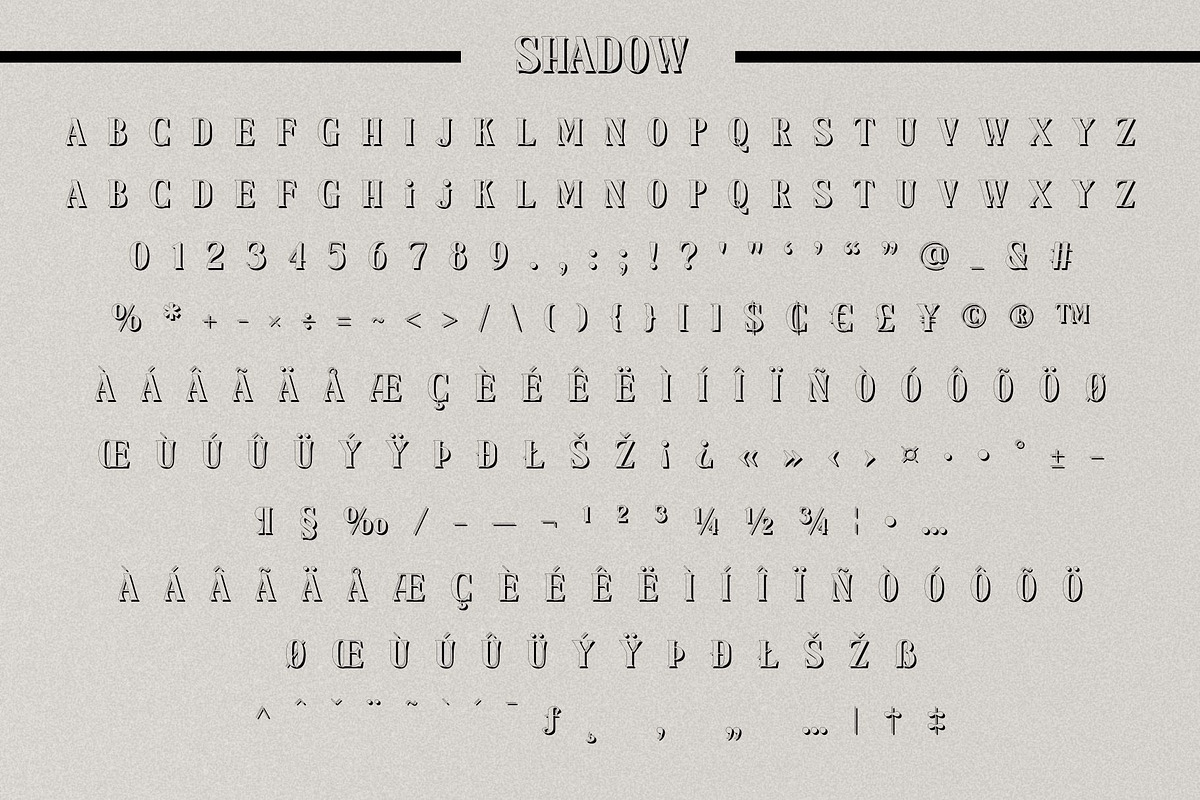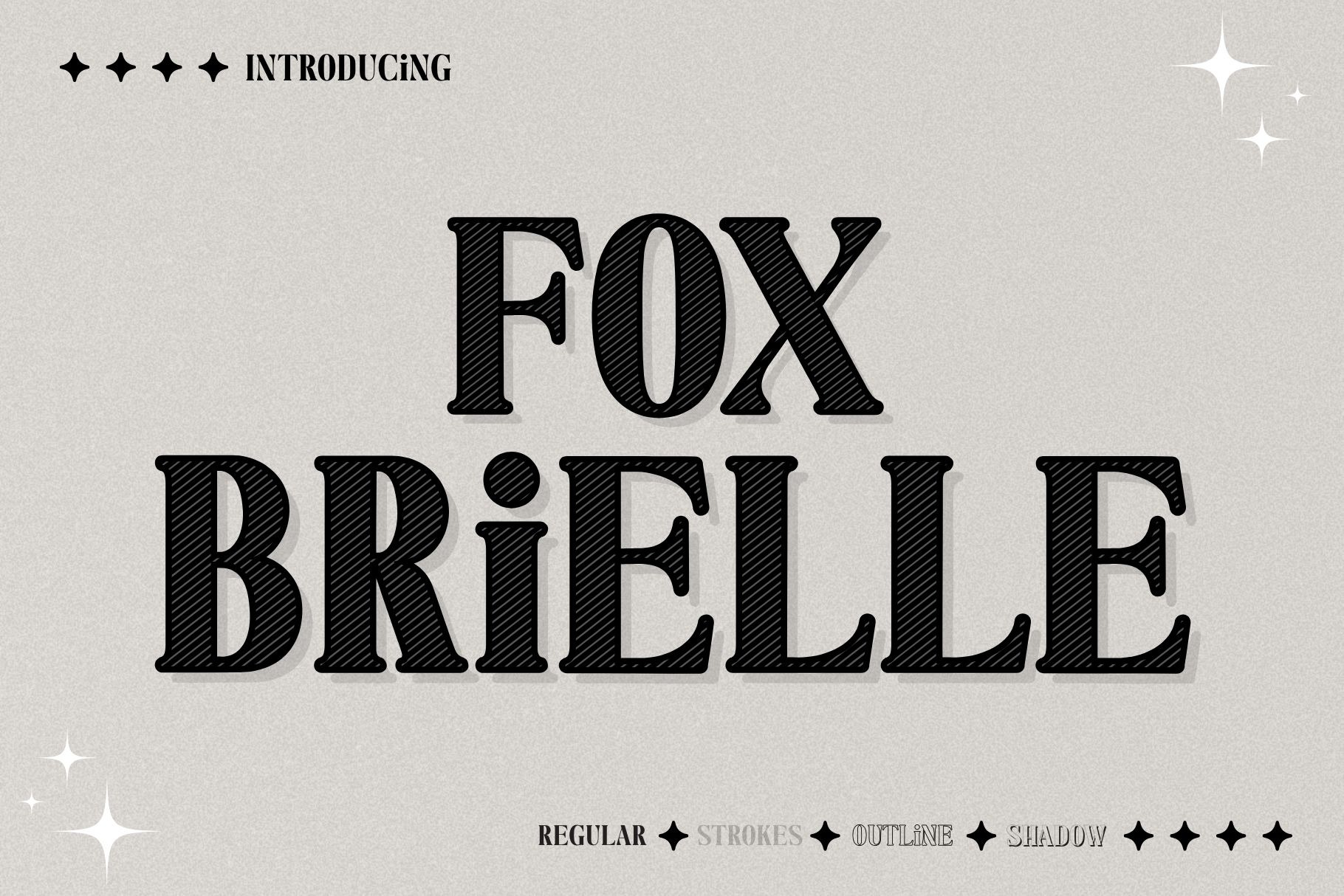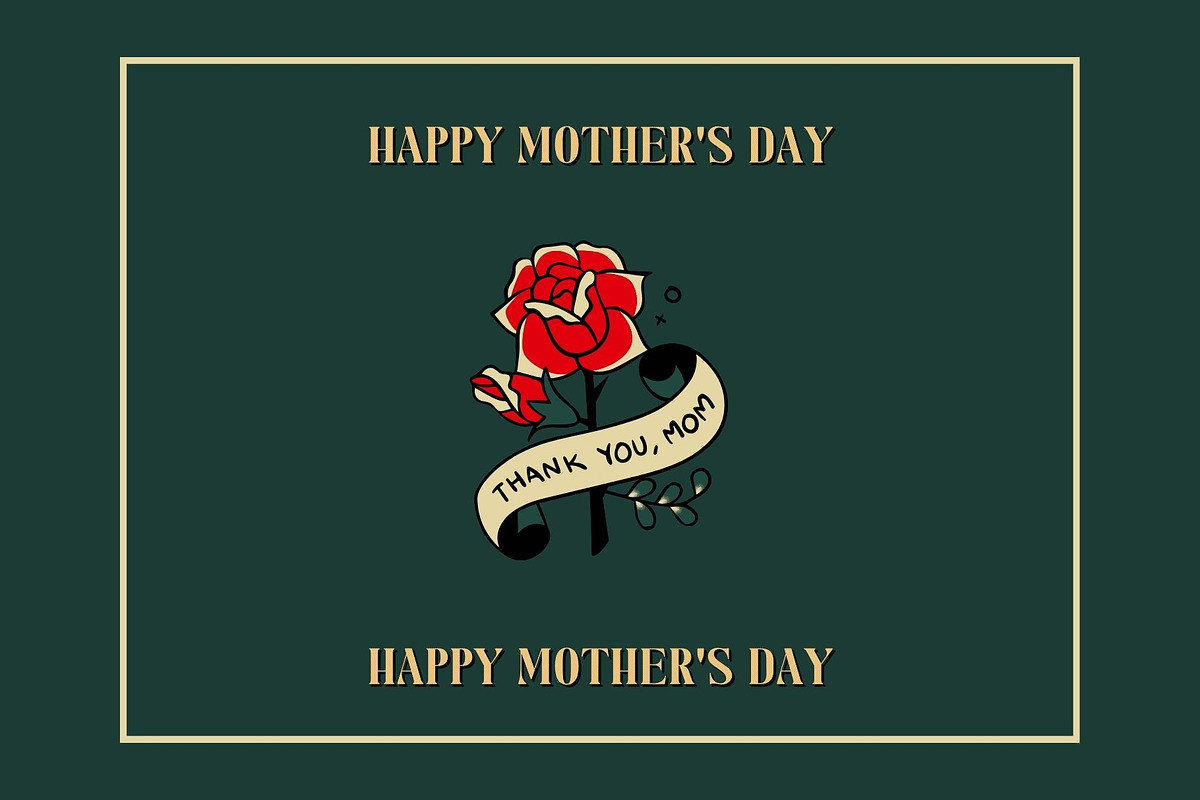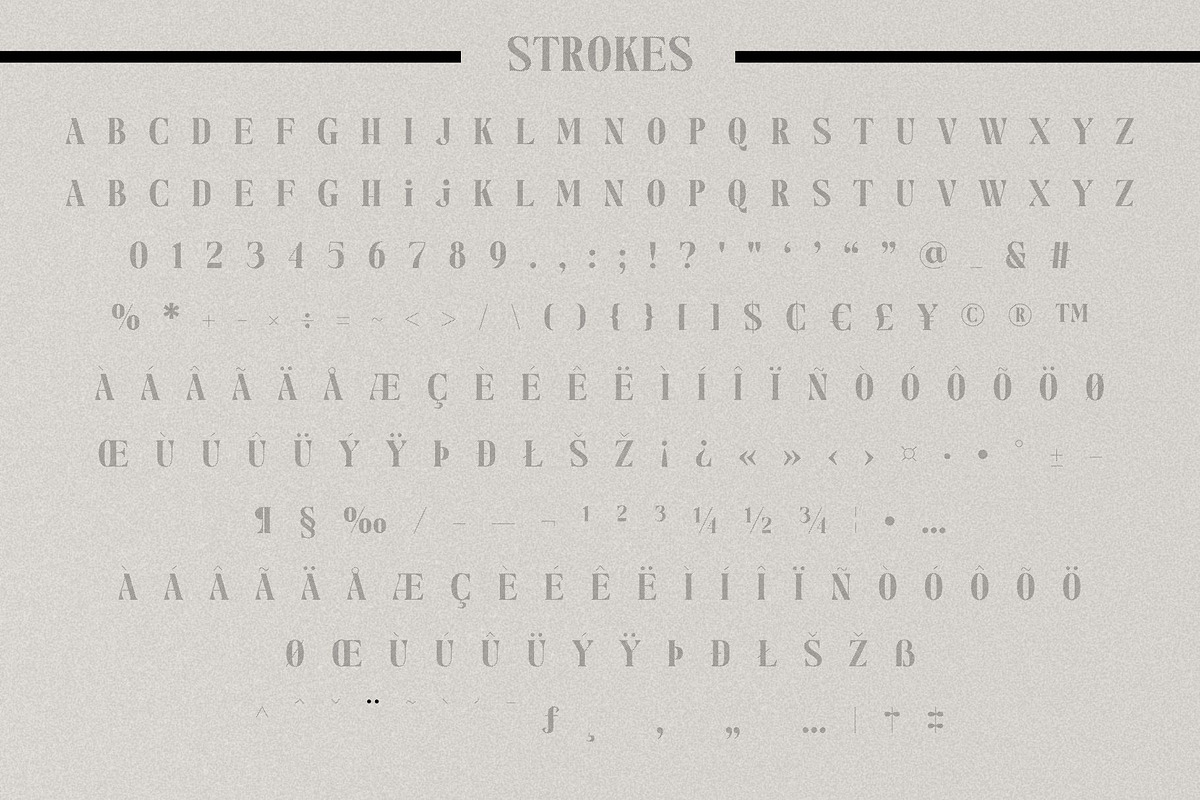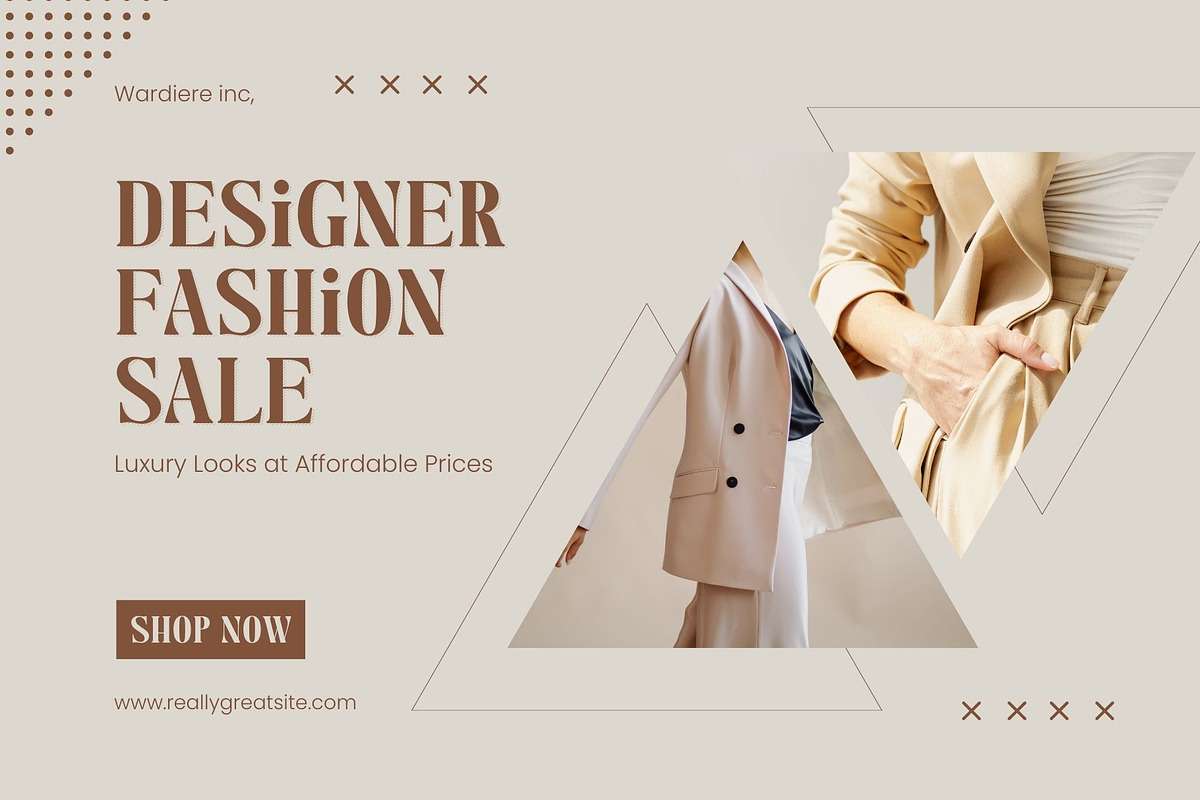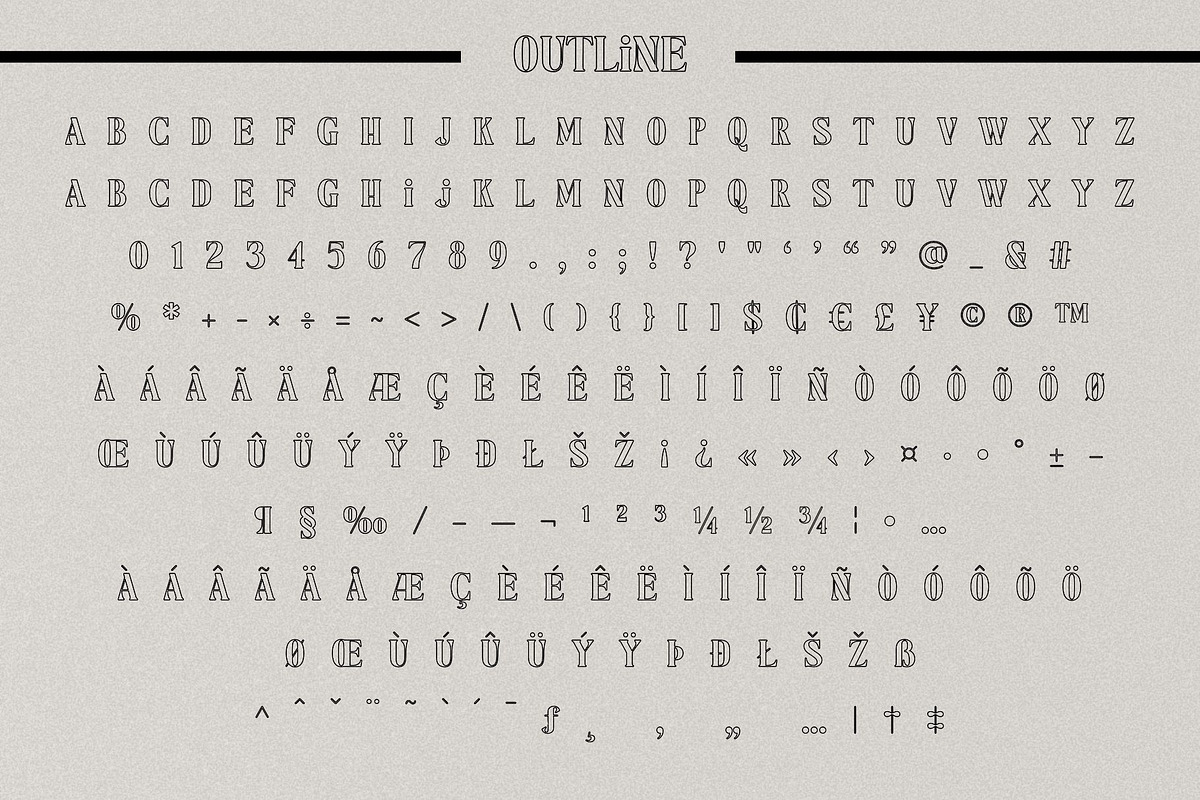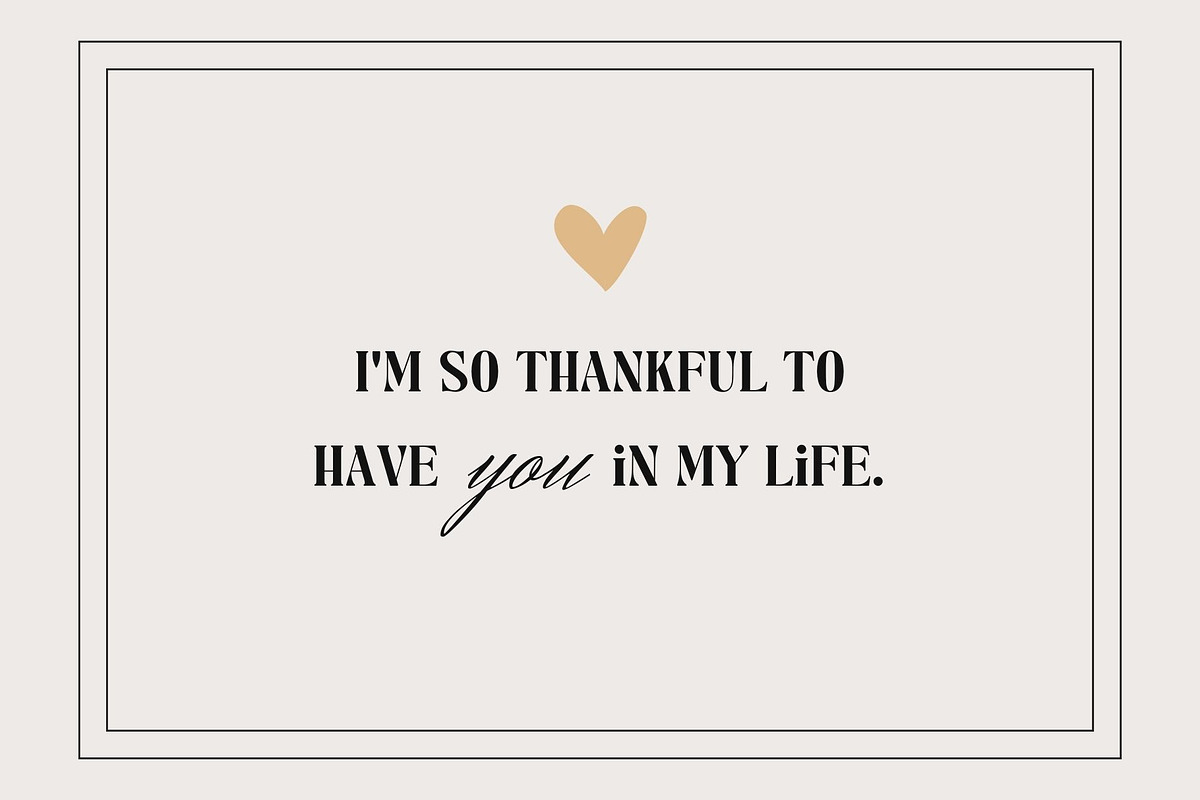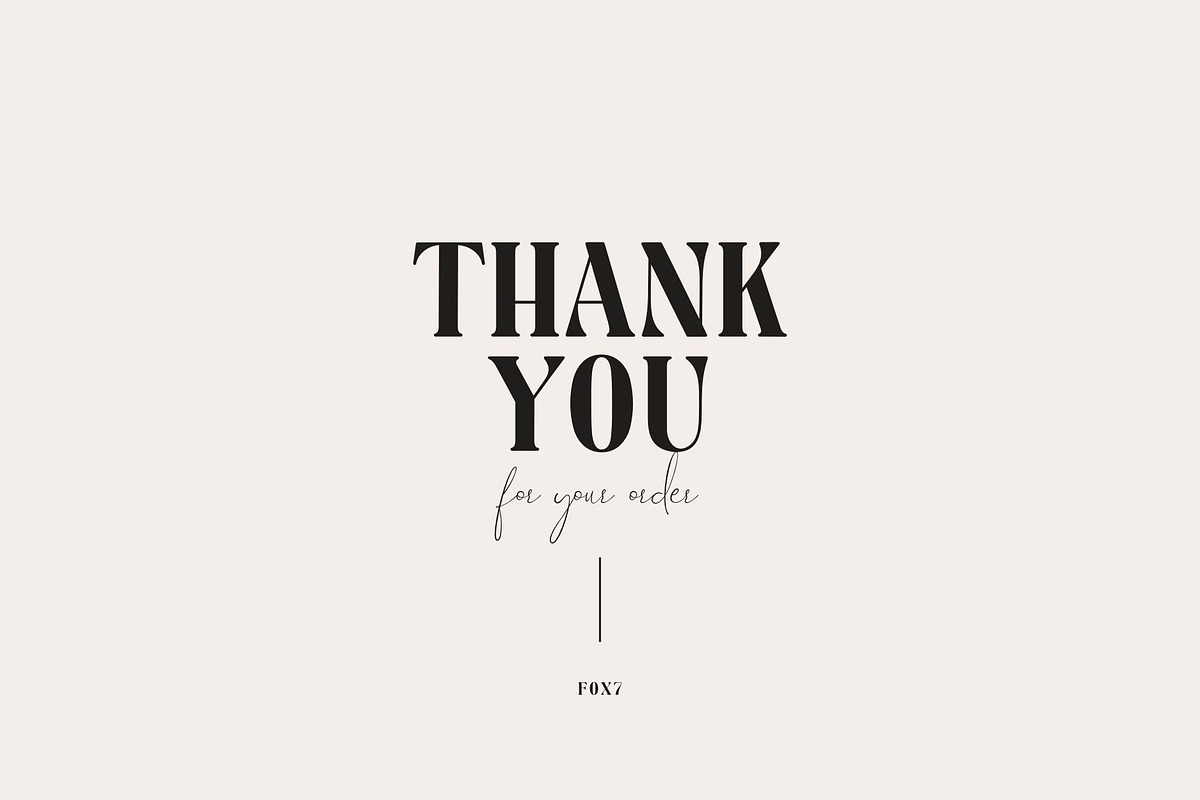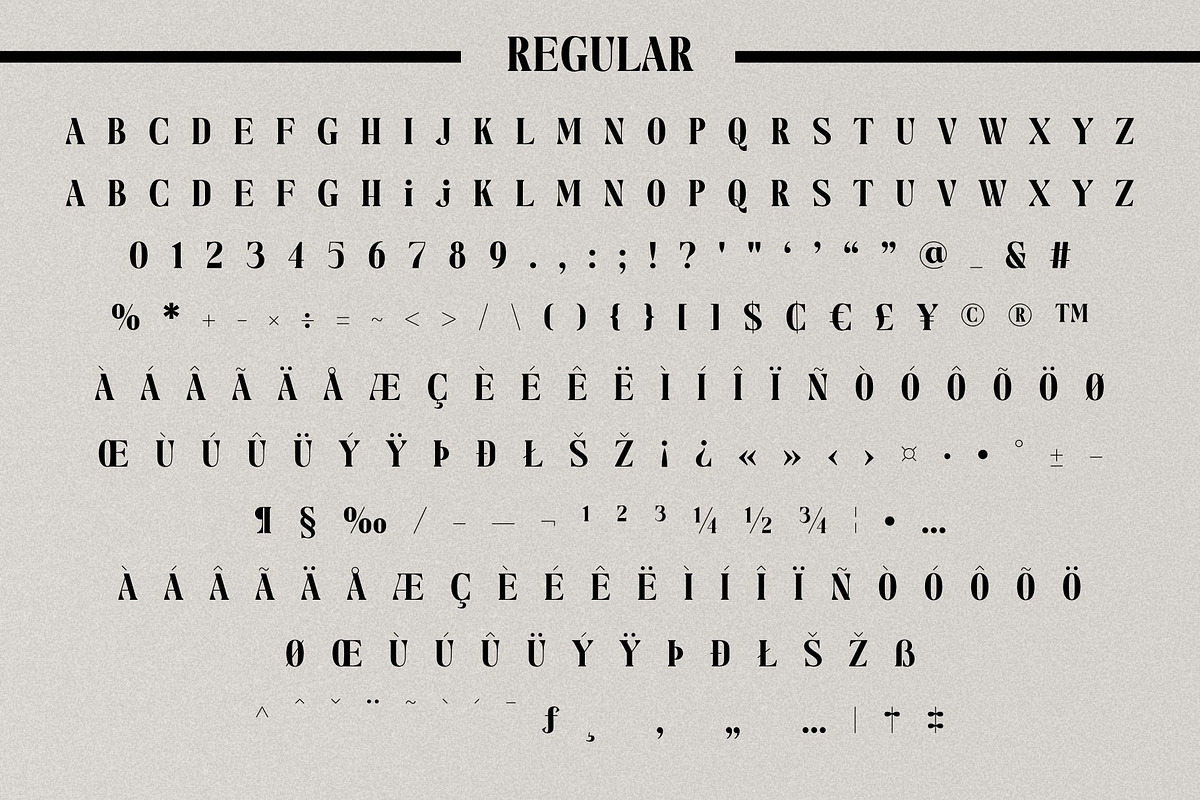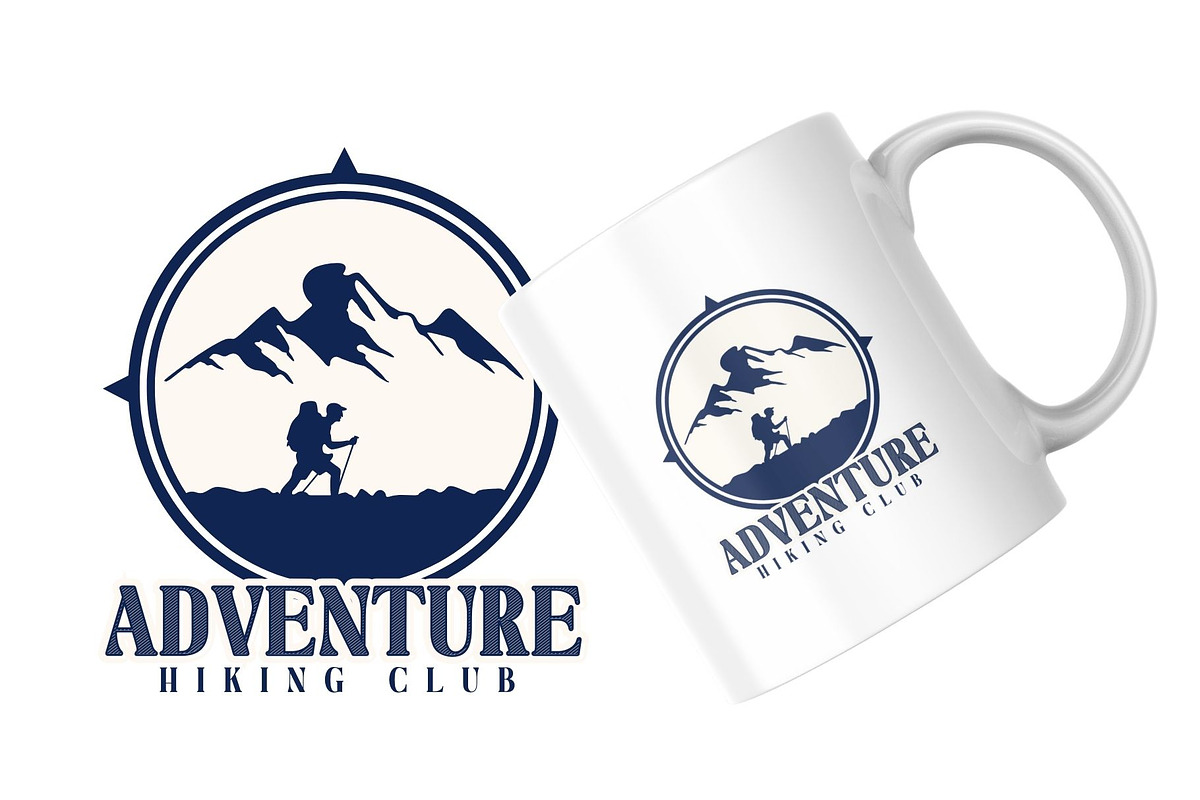
Fox Brielle Font
Fox Brielle is a versatile serif font collection designed to bring elegance, charm, and timeless sophistication to your creative projects. Inspired by classic typography with a modern touch, Fox Brielle features beautifully balanced letterforms and refined details that feel both graceful and confident.
This font family includes multiple stylish variations — Regular, Strokes, Outline, and Shadow — allowing you to create rich visual depth and eye-catching typography with ease. Whether used individually or layered together, Fox Brielle offers endless creative possibilities.
Perfect for logos, branding, headlines, packaging, editorial layouts, invitations, posters, and sophisticated designs, Fox Brielle elevates your work with a polished and professional look.
Fox Brielle is the perfect choice for designers looking to add a touch of luxury, classic beauty, and versatility to their typography collection.